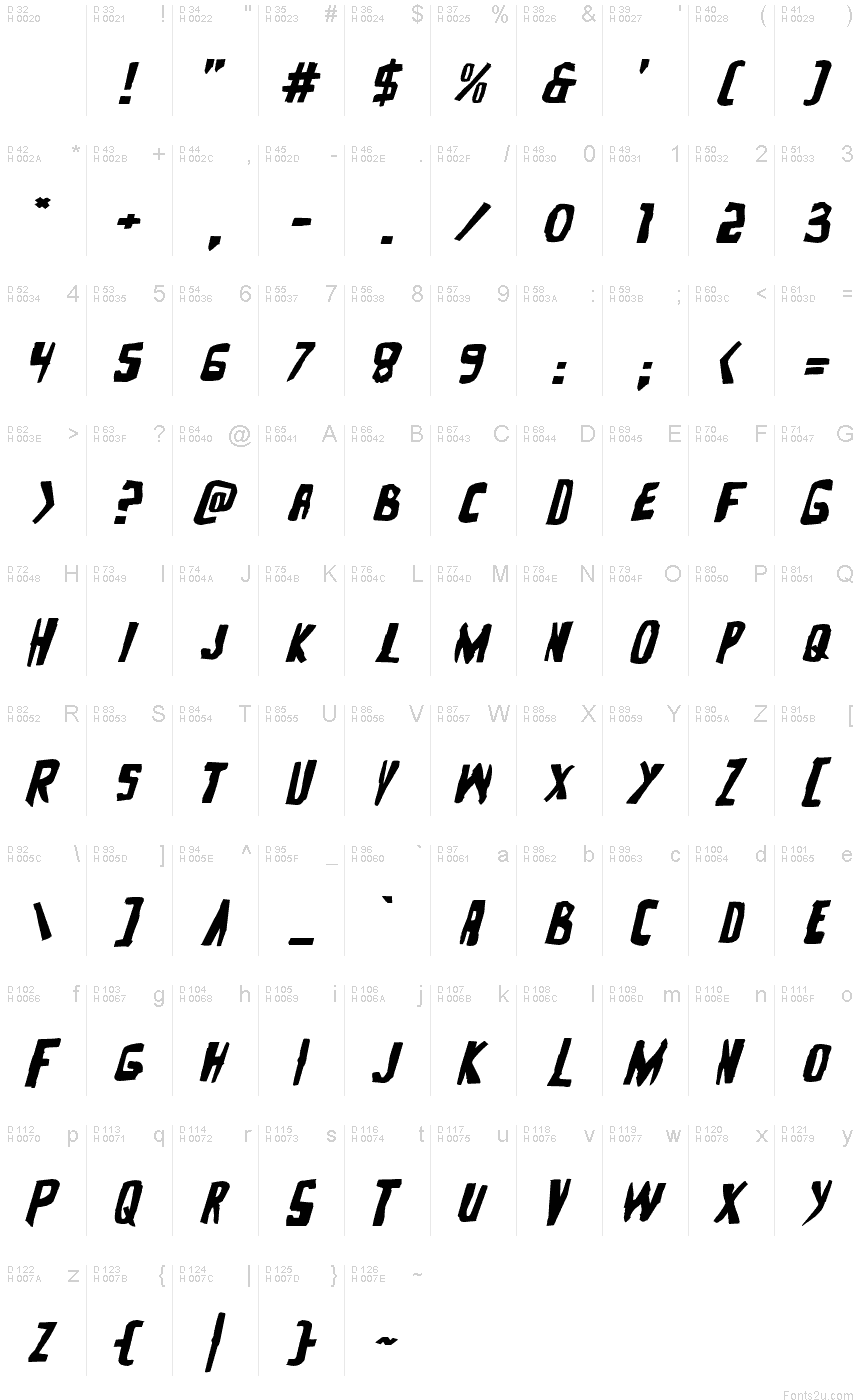
Zakenstein Expanded Italic by Daniel Zadorozny of Iconian Fonts is a free distorted display font with broad, forward-leaning capitals. Its thick strokes bend and pinch unpredictably, giving the letters a cut-paper roughness. Uneven edges and sudden notches make the shapes look restless rather than mechanically skewed.
The torn, angular contours connect readily with monster artwork and distressed comic illustration. This makes the font useful for horror posters, game packaging, album covers, and skate merchandise, especially when the lettering needs the same unruly texture as the surrounding graphics. Here, the words can become part of the artwork itself.
Zakenstein Expanded Italic